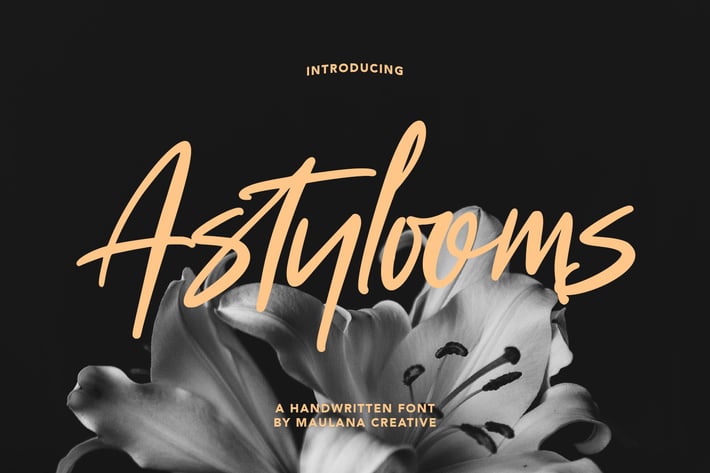
Astylooms Handwritten Brush Font
Give your designs an authentic brush handcrafted feel. "Astylooms Handwritten Brush Font" is perfectly suited to signature, stationery, logo, typography quotes, magazine or book cover, website header, flyer, clothing, branding, packaging design and more.